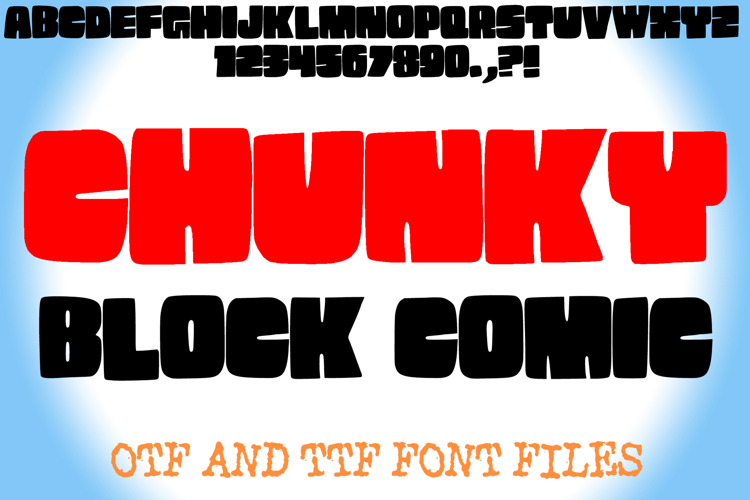
Chunky Block Comic Lettering ABC Font Typography Text
Inject a burst of fun and personality into your creative projects with Chunky Block Comic Font, the perfect typeface for bringing a smile to any design! This irresistibly playful font features a bold, hand-drawn style with slightly irregular shapes that give it an authentic, bubbly, and charismatic charm.
Each character is crafted to capture the essence of classic cartoon lettering, with thick, friendly strokes and a solid, blocky structure that makes it pop off the page. Whether you're designing for kids' crafts, lively headlines, comic strips, vibrant social media graphics, or cheerful branding, this font is your secret weapon for creating memorable and engaging visuals.
Chunky Block Comic Font is not just for display; it's a versatile tool for a wide range of uses, from eye-catching T-shirt designs and custom mugs to posters, party invitations, and YouTube thumbnails. Its simple yet powerful style ensures readability while making a big, friendly statement.